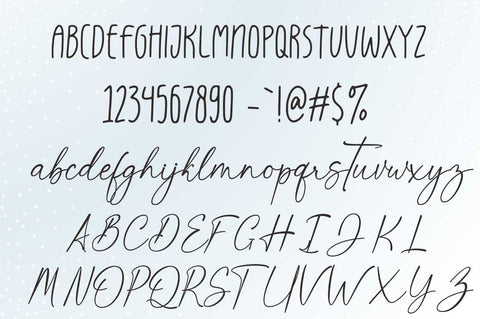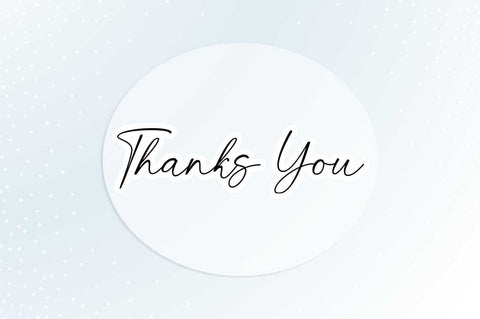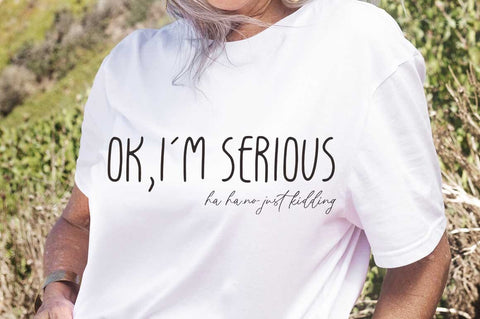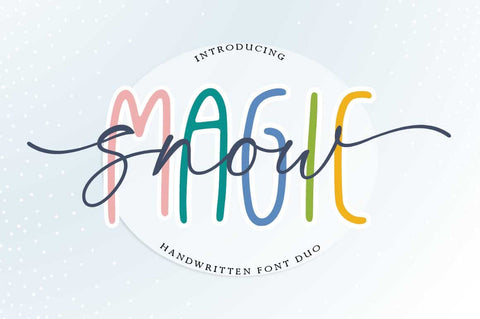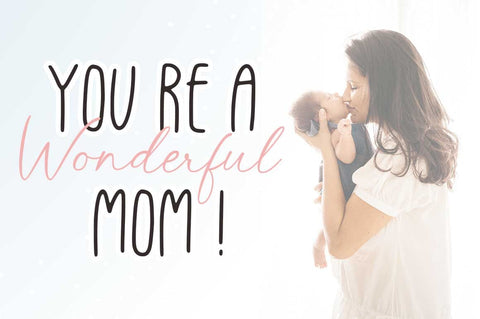
Magic snow
Magic Snow Duo is a stylish and smooth duo font (script and sans serif) suitable for a wide spectrum of applications. From greeting cards to headlines, this font will guarantee a romantic touch to your every creation! The Magic Snow Duo is PUA coded which means you can access all the glyphs and swashes easily